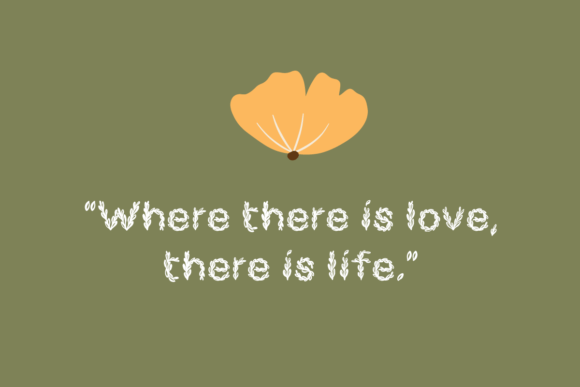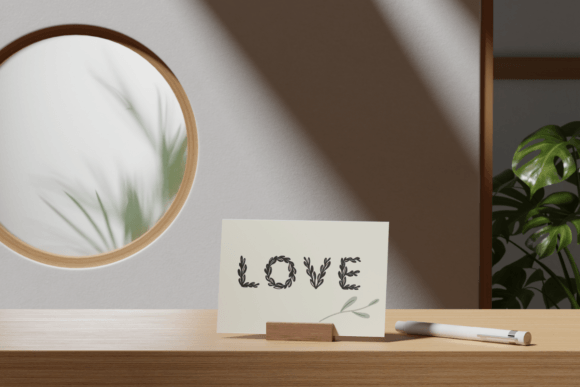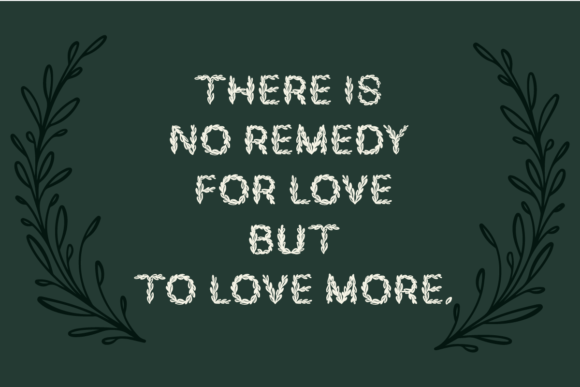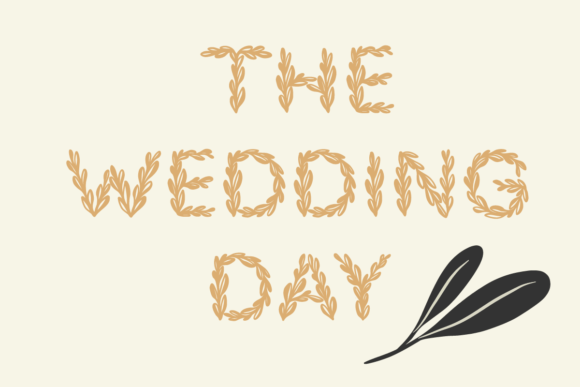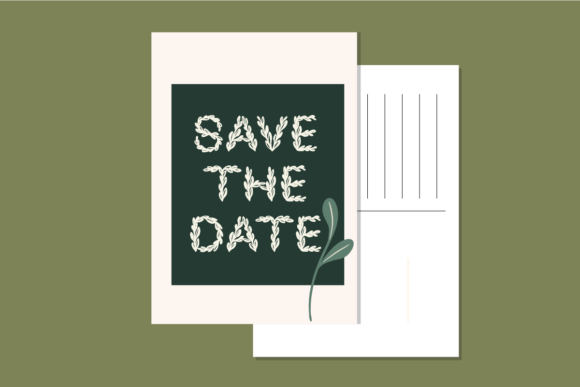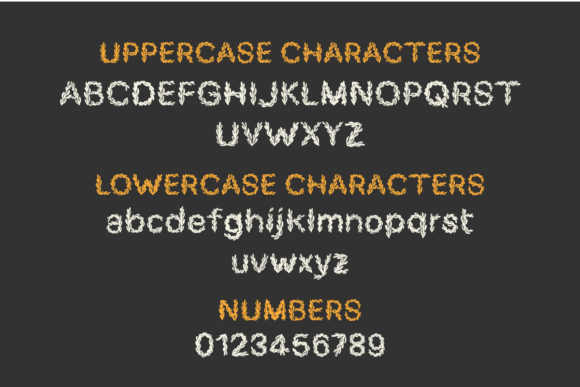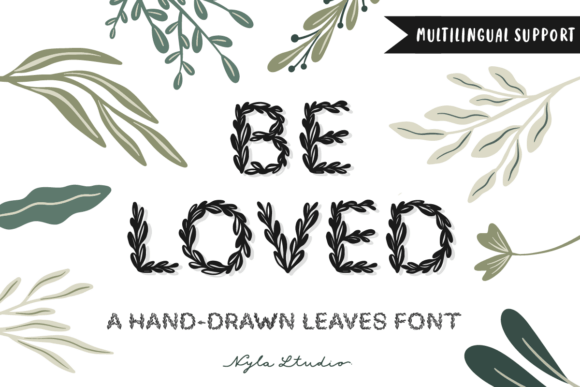
The Beloved Font: A Hand-Drawn Treasure for Creative Projects
Have you ever been in the middle of a design project, and suddenly, you’re stuck on finding the perfect font? I recall a particularly frustrating experience while working on a wedding invitation design. My client wanted something elegant, yet playful, and I was determined to deliver. That’s when I stumbled upon the Beloved font – a hand-drawn treasure that has since become a staple in my design toolkit.
A Personal Review: What I Love About Beloved
Here’s what makes Beloved a standout font:
• ✨ Unique, hand-drawn aesthetic with beautiful leaf decorations
• ✅ Perfect for wedding projects, shirts, invitations, mugs, stickers, and more
• 🖌️ Highly versatile and adaptable to various design contexts
• 💕 Adds a touch of whimsy and elegance to any design
While Beloved is an exceptional font, there are a few minor quirks to be aware of:
• 🤔 Some users may find the leaf decorations a bit too ornate for certain projects
• ⚠️ Limited character set, which might not be suitable for very long texts
Beloved was created with the intention of capturing the whimsical, romantic essence of nature. The designer aimed to craft a font that would add a touch of elegance and playfulness to any design project. The result is a beautiful, hand-drawn font that has captured the hearts of designers and crafters alike.
Q: What type of projects is Beloved best suited for?
A: Beloved is perfect for wedding projects, shirts, invitations, mugs, stickers, and more – any project that requires a touch of elegance and whimsy.